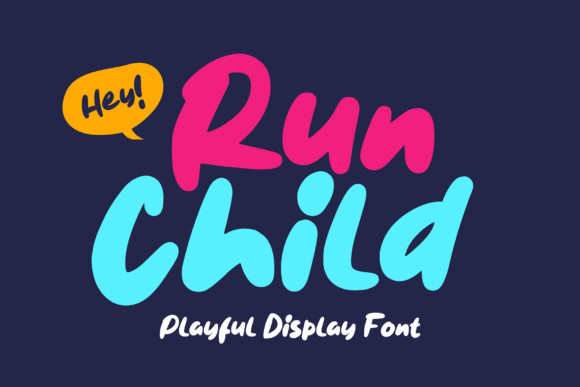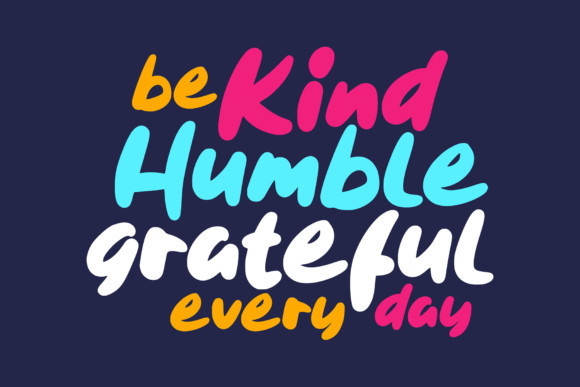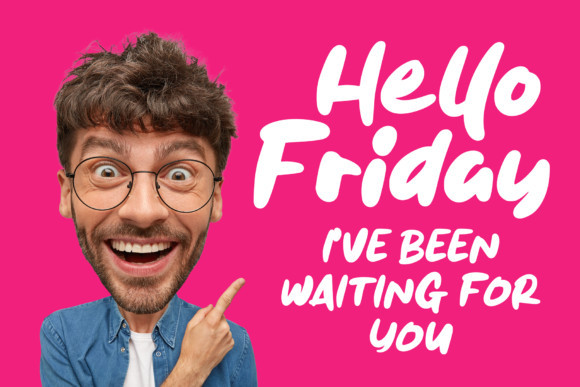
Run Child Font
Run Child is a playful and sweet display font. No matter the topic, this font will be an incredibly asset to your fonts’ library, as it has the potential to elevate any creation.